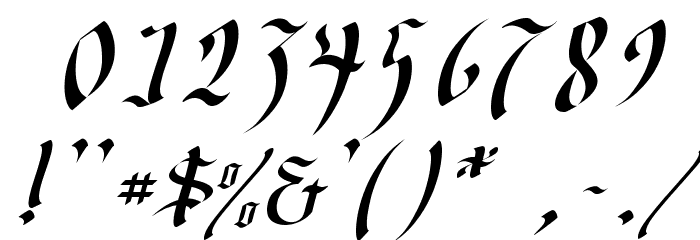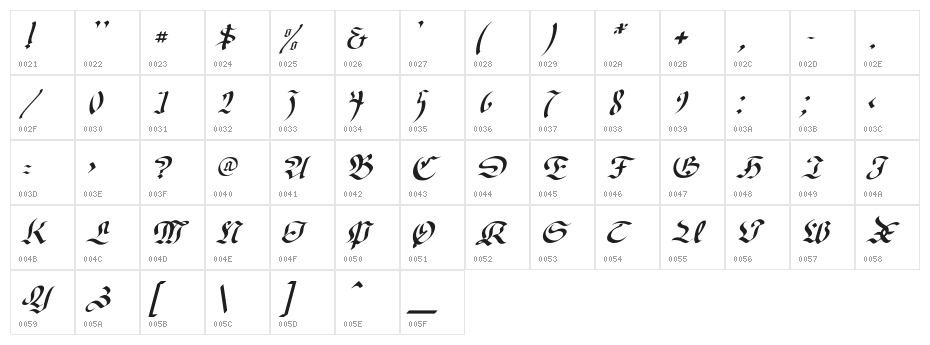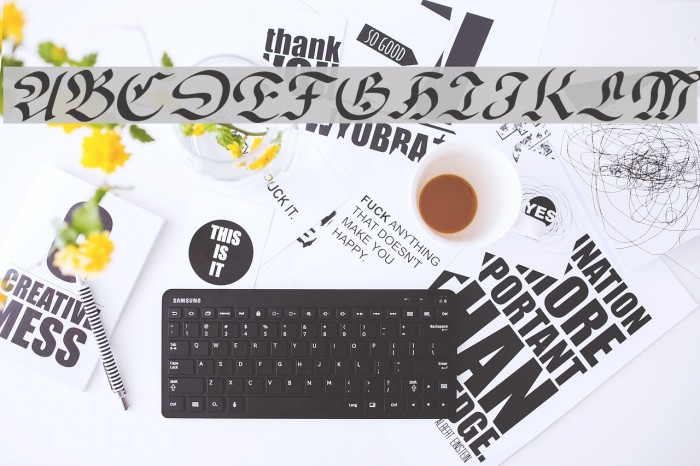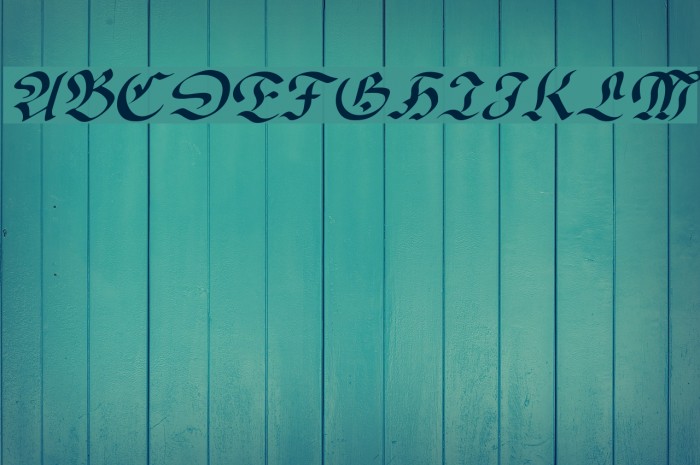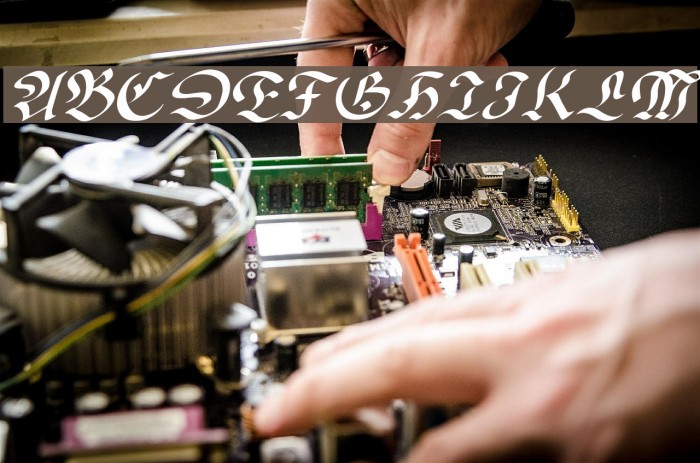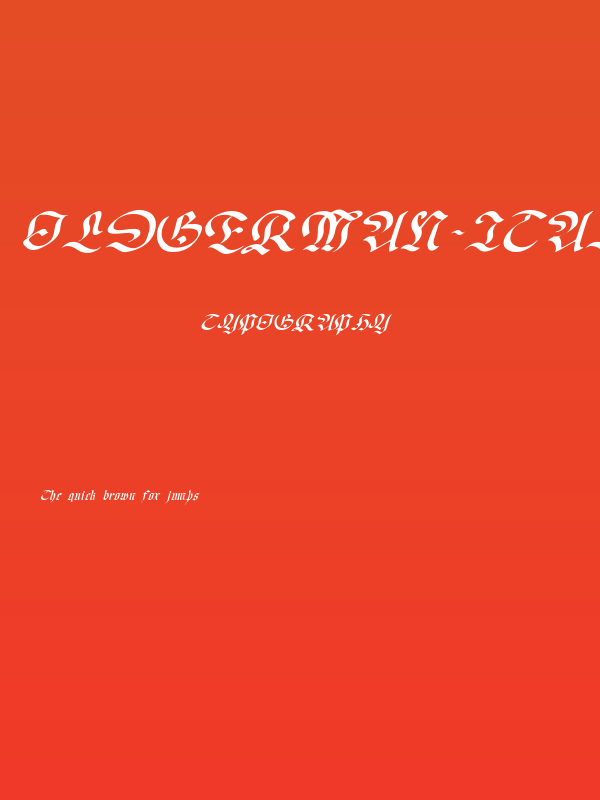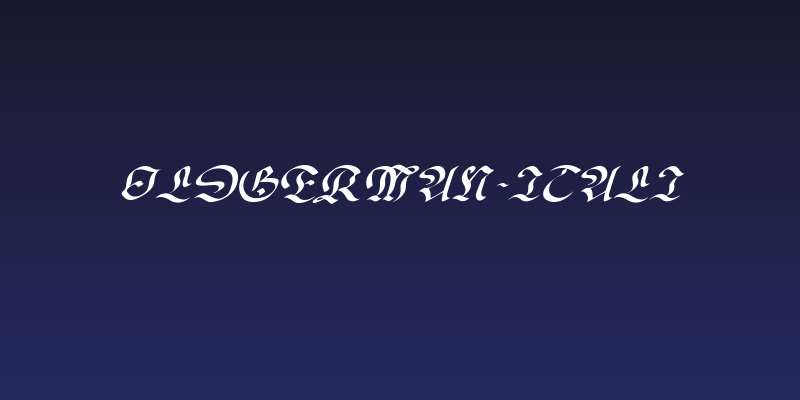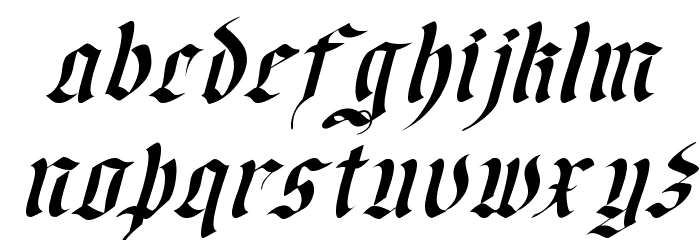
OldGerman-Itali Font
OldGerman-Itali Description
This font embodies the traditional elegance of Blackletter style, characterized by its intricate and ornate letterforms. The uppercase letters feature sharp, angular lines with dramatic flourishes, while the lowercase letters maintain a consistent flow with pointed edges and decorative elements. The numerals and special characters are equally elaborate, showcasing a historical aesthetic reminiscent of medieval manuscripts. The overall design is bold and striking, making it ideal for projects that require a touch of vintage sophistication.